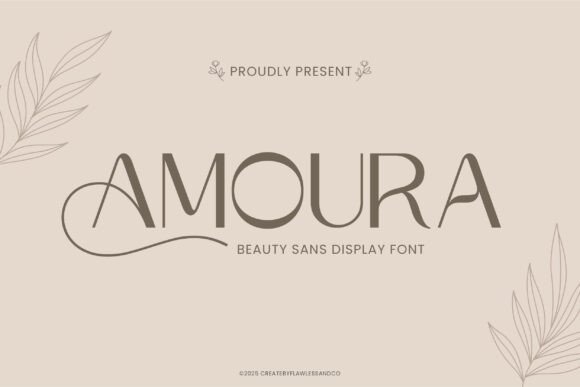
Amoura Font: A Refined Sans Display Font
Amoura Font is a stunning sans display font that embodies everything I was looking for: elegance, softness, and modern femininity. With its **graceful curves** and **delicate alternates**, every letter flows like a poetic rhythm. It’s perfect for capturing attention in beauty, fashion, and lifestyle designs. Its clean and stylish form brings a touch of sophistication, making Amoura a go-to choice for creators seeking charm and refinement in their visual storytelling.
- ✨ Elegant and refined design
- ✅ Perfect for beauty, fashion, and lifestyle designs
- 💫 Delicate alternates and glyphs for added creativity
- 🎉 Easy to read and visually appealing
- 🤔 Limited use for body text due to its display font nature
- ⚠️ May not work well for very small font sizes
The Designer Inspiration Behind Amoura
Amoura Font was designed with the intention of creating a font that embodies modern femininity and elegance. The designer aimed to craft a font that would be perfect for beauty, fashion, and lifestyle designs, with a focus on **graceful curves** and **delicate alternates**. The result is a font that is both refined and stylish, making it a great addition to any design project.
Q: What type of designs is Amoura Font best suited for?
A: Amoura Font is perfect for beauty, fashion, and lifestyle designs, where elegance and sophistication are key.
Q: Can I use Amoura Font for body text?
A: While Amoura Font is a beautiful font, it’s primarily designed for display use. It may not be the best choice for body text due to its elegant and refined nature.
Q: Does Amoura Font have OpenType features?
A: Yes, Amoura Font has OpenType features, including stylistic alternates and glyphs, which can be accessed in compatible design software.
Q: Is Amoura Font easy to read?
A: Yes, Amoura Font is designed to be easy to read and visually appealing, making it perfect for designs where clarity is important.